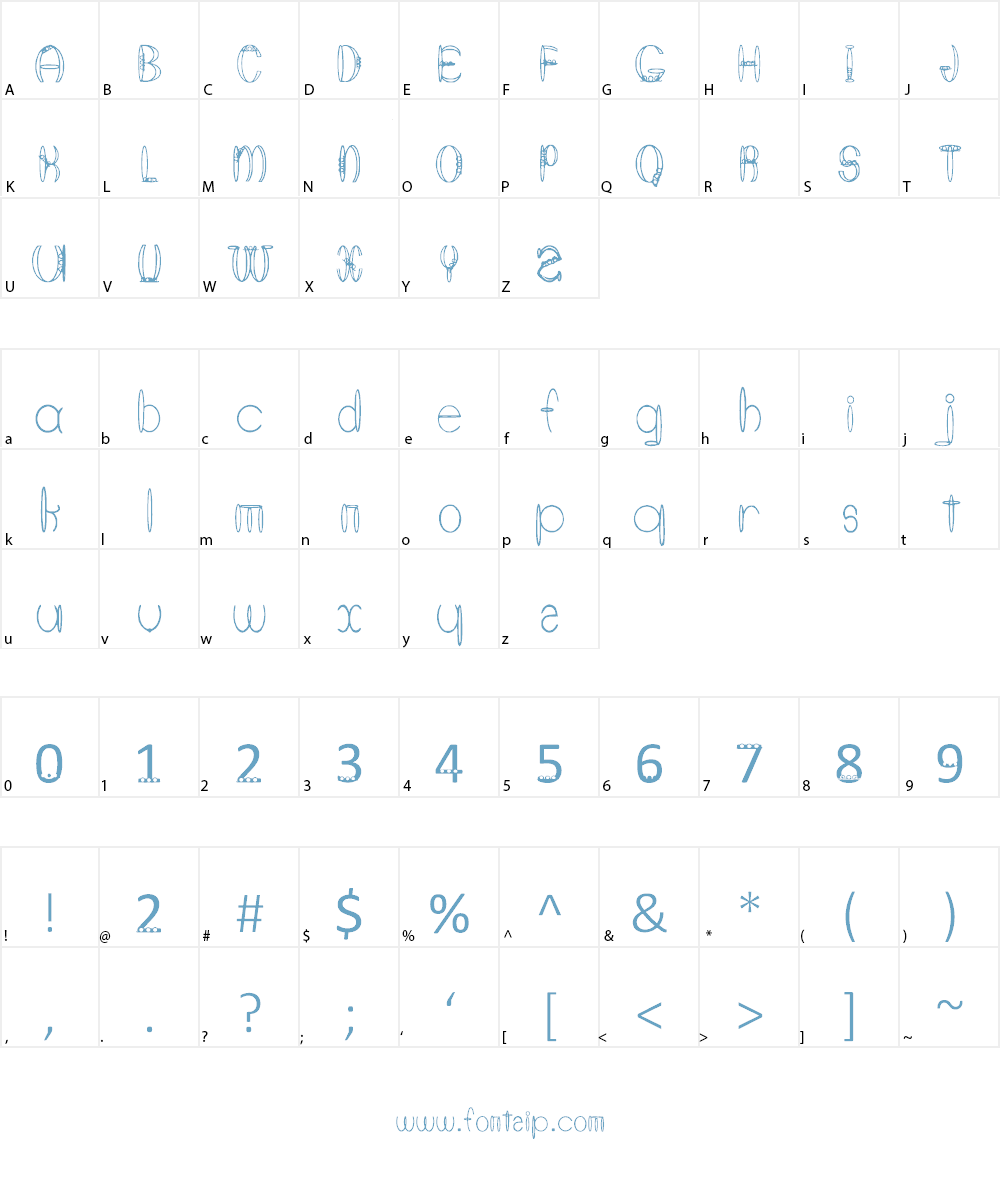
Round About is created using circles, ovals, and arches. On each capital letter there are also three little circles. This is a casual font, great for any use. If you want to use it for commercial use, please give a contribution.